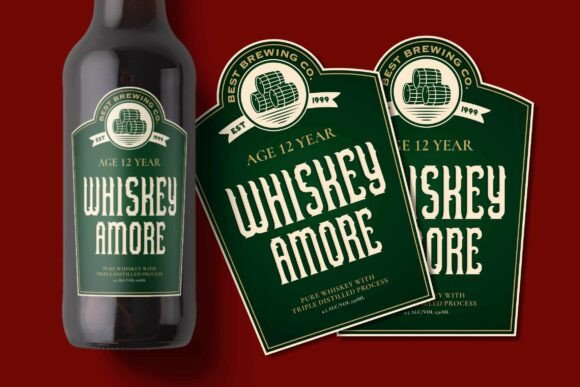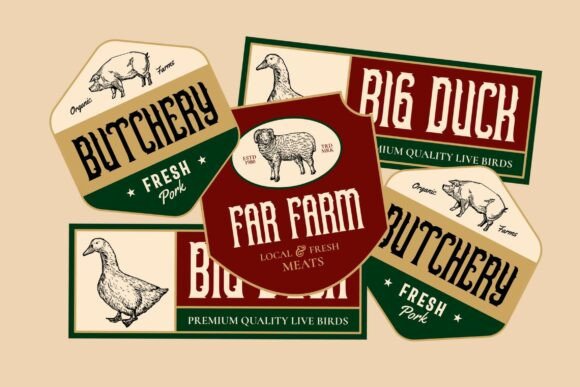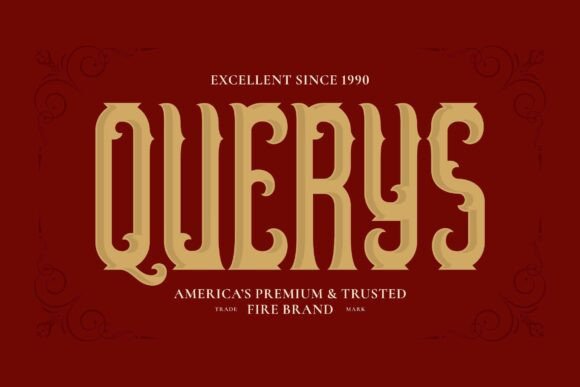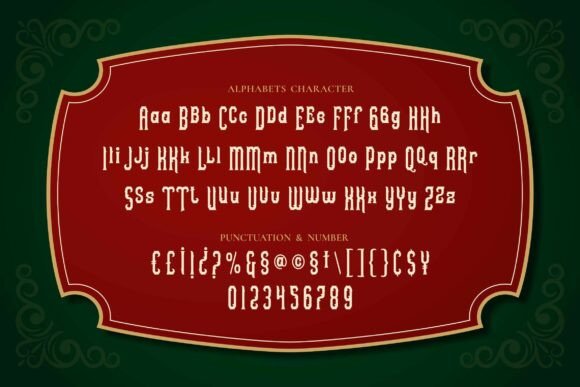
Gonser Font: Elevate Your Brand with a Vintage Serif Flair
In the world of design, typography plays a crucial role in conveying a brand’s message and personality. For those seeking a font that embodies tradition, craftsmanship, and rustic elegance, Gonser is an exceptional choice. This bold and character-rich vintage serif font is specifically designed to bring a touch of nostalgia and handcrafted charm to your projects.
What is Gonser Font?
Gonser is a meticulously crafted vintage serif font, tailored for product labels, packaging, and retro-inspired branding. Its tall, compact letterforms and striking slab serifs make it an ideal choice for designers looking to add a classic, yet contemporary twist to their work. Every character in Gonser is infused with subtle decorative quirks, such as angled terminals and distinctive foot shapes, which lend a handcrafted, artisanal feel to your designs.
Key Features of Gonser Font
- Bold and Character-Rich Design: Gonser’s bold design ensures that your labels, packaging, and branding materials stand out, while its character-rich features add a layer of depth and personality to your text.
- Tall, Compact Letterforms: The font’s tall and compact letterforms make it perfect for creating visually appealing and space-efficient designs.
- Striking Slab Serifs: Gonser’s slab serifs add a touch of sophistication and elegance, making it suitable for high-end branding and packaging.
- Subtle Decorative Quirks: The font’s subtle decorative quirks, such as angled terminals and distinctive foot shapes, give Gonser a unique, handcrafted feel.
- PUA Encoded Glyphs and Swashes: Gonser’s glyphs and swashes are PUA encoded, making them easy to use in any design software.
Ideal Uses for Gonser Font
Gonser is a versatile font that can be used in a variety of design projects, including:
- Beverage & Food Labels: Gonser is perfect for creating eye-catching labels for craft beverages, specialty foods, and artisanal products.
- Vintage Logos: The font’s retro-inspired design makes it an excellent choice for creating vintage-style logos that evoke a sense of nostalgia and tradition.
- Craft Product Packaging: Gonser’s bold and character-rich design makes it ideal for packaging materials, such as boxes, bags, and labels, for craft products.
Why Choose Gonser Font?
Gonser is an excellent choice for designers and crafters looking for a font that embodies tradition, craftsmanship, and rustic elegance. Here are some reasons why:
- Unique and Handcrafted Feel: Gonser’s subtle decorative quirks and bold design give it a unique, handcrafted feel that sets it apart from other fonts.
- Excellent Legibility: Despite its decorative features, Gonser remains highly legible, making it suitable for use in a variety of design projects.
- Contemporary Edge: Gonser’s vintage-inspired design is balanced by a contemporary edge, making it perfect for designers seeking a retro serif font with a modern twist.
In conclusion, Gonser is a versatile and stylish vintage serif font that is perfect for designers and crafters looking to add a touch of tradition and handcrafted charm to their projects. With its bold and character-rich design, striking slab serifs, and subtle decorative quirks, Gonser is an excellent choice for a variety of design applications, from beverage and food labels to vintage logos and craft product packaging.
Whether you’re a designer seeking a unique font for your next project or a crafter looking to add a personal touch to your products, Gonser is an exceptional choice. Its PUA encoded glyphs and swashes make it easy to use in any design software, and its excellent legibility ensures that your designs will be both visually appealing and easy to read.